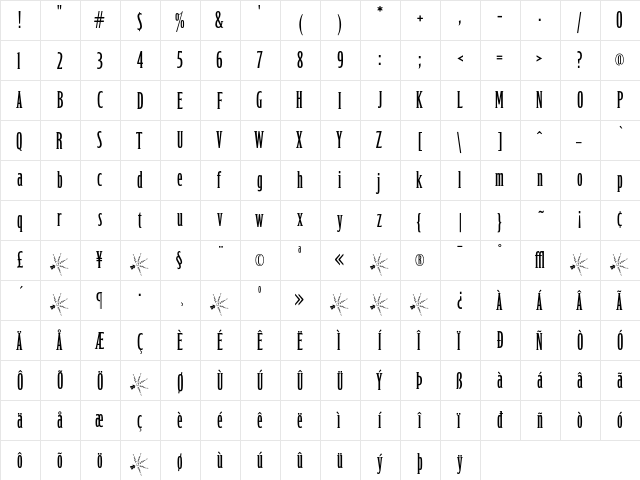
Lafayette ExtraCondensed
Design Context for Lafayette Typeface
Lafayette offers clean, dependable letterforms without strong stylistic allegiance, making it a practical choice for designers who need flexibility. Its narrow stance lets it pack a punch even in space-constrained designs.
Pro Tip: Use Lafayette in both headline and body roles to test its range before committing to a single application.